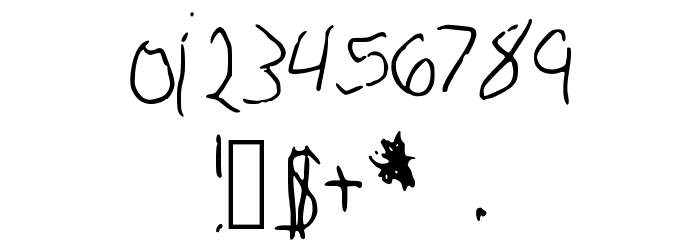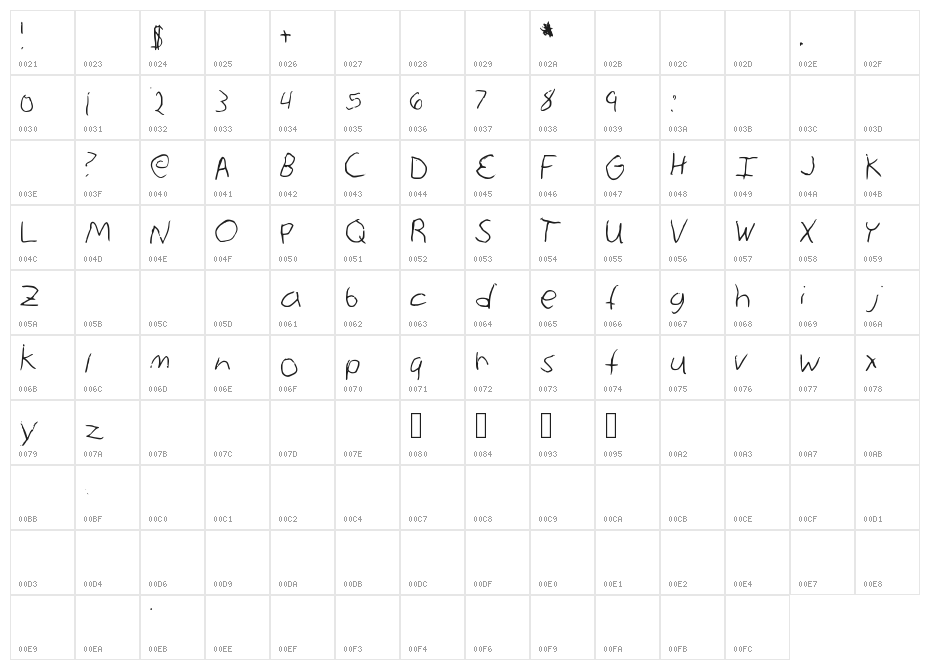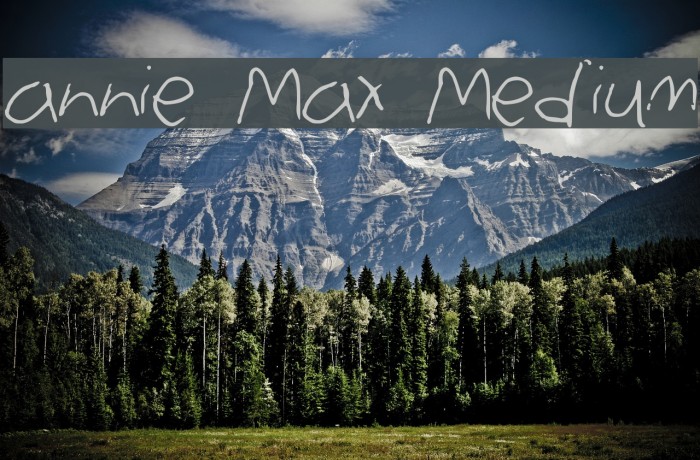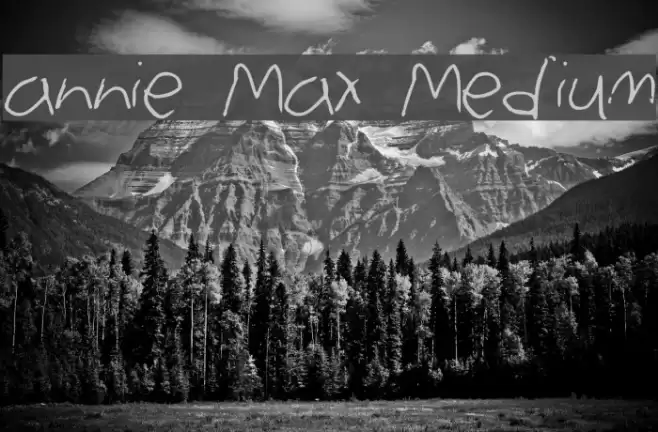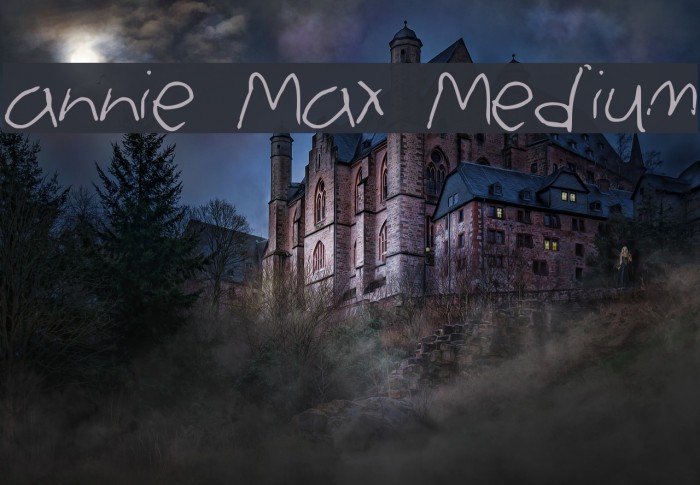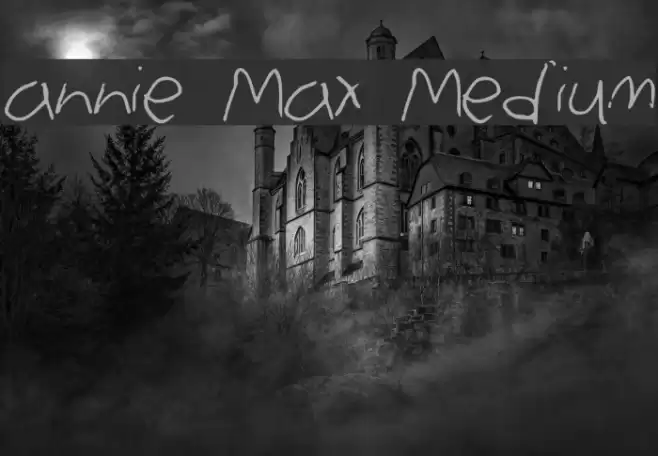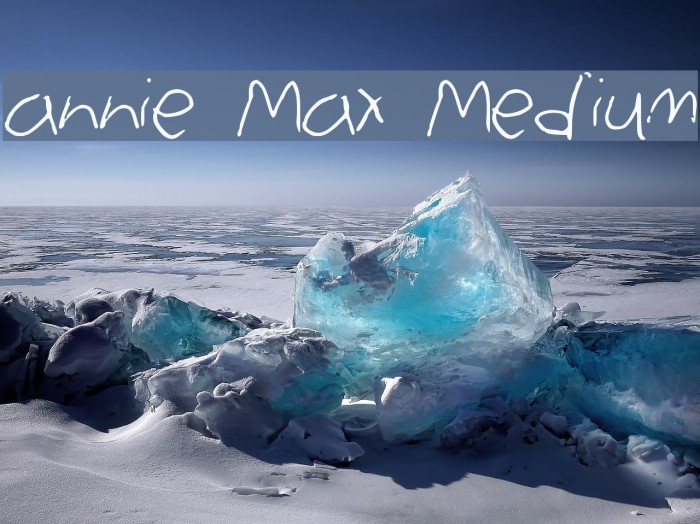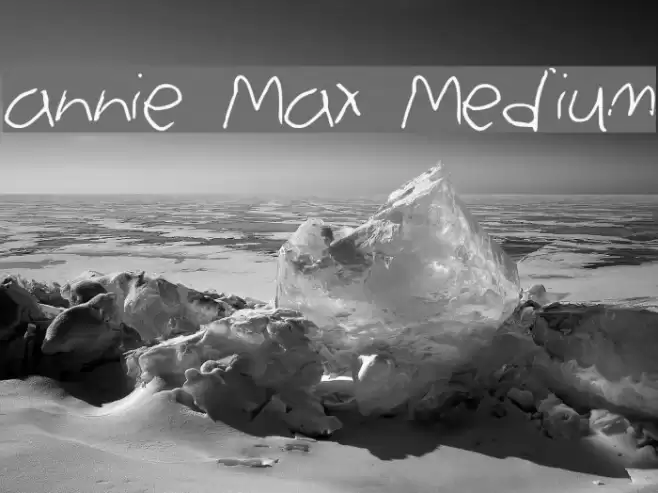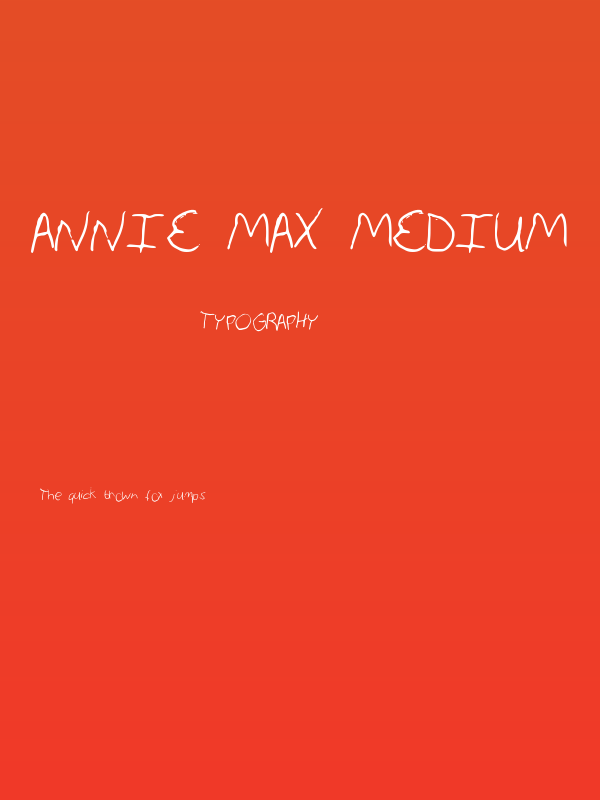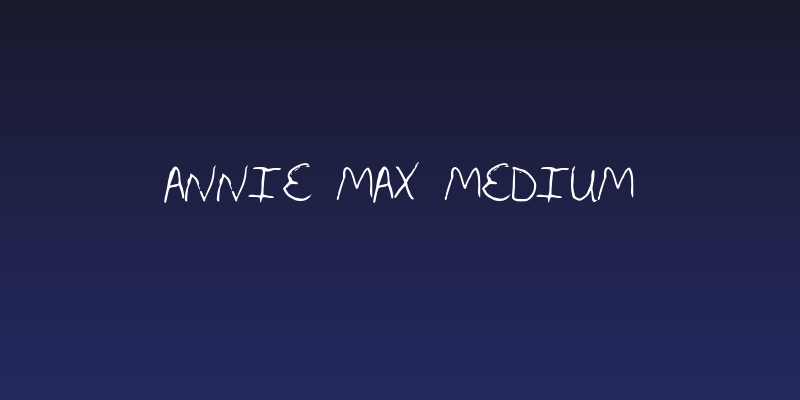
annie Max Medium Font
annie Max Medium Description
This font exhibits a casual, handwritten style with a playful and informal appearance. The characters are unevenly shaped, giving a sense of spontaneity and creativity. The strokes are irregular, with varying thickness that adds to the font's dynamic and lively feel. The uppercase and lowercase letters maintain a consistent style, while the numbers and special characters follow the same whimsical design. This font is perfect for projects that require a personal touch or a relaxed, friendly vibe.
| Proposed Projects | Ideal for greeting cards, children's books, personal blogs, and creative posters. |